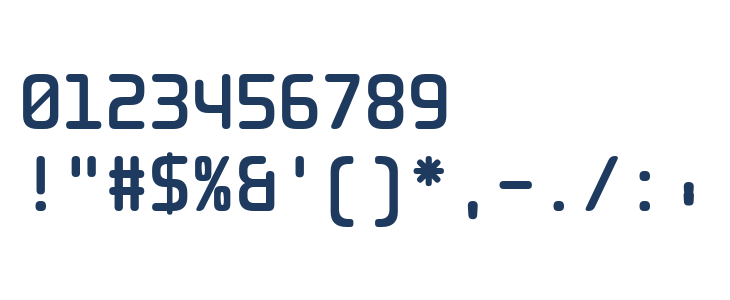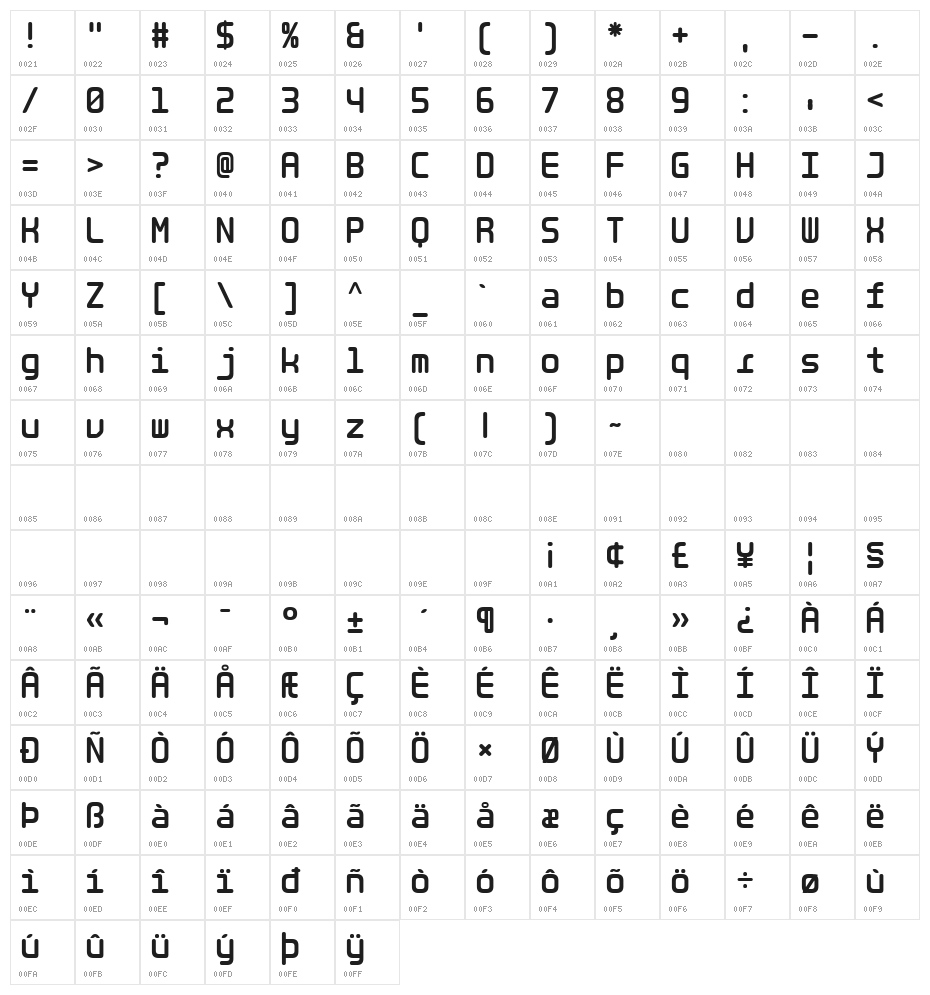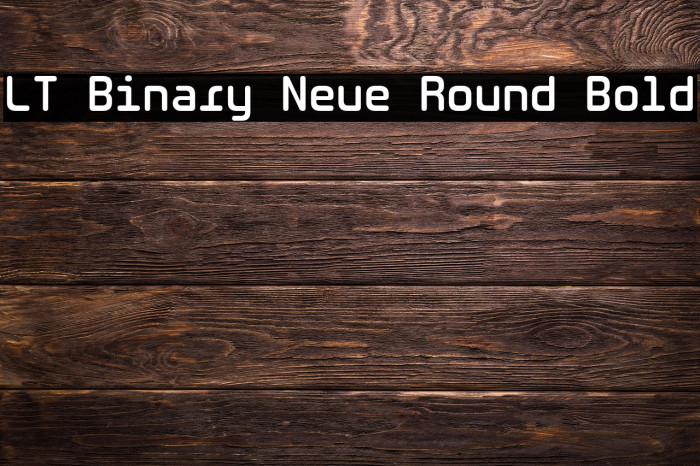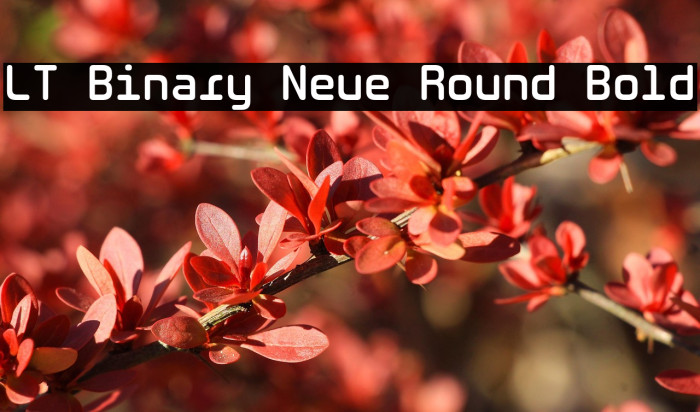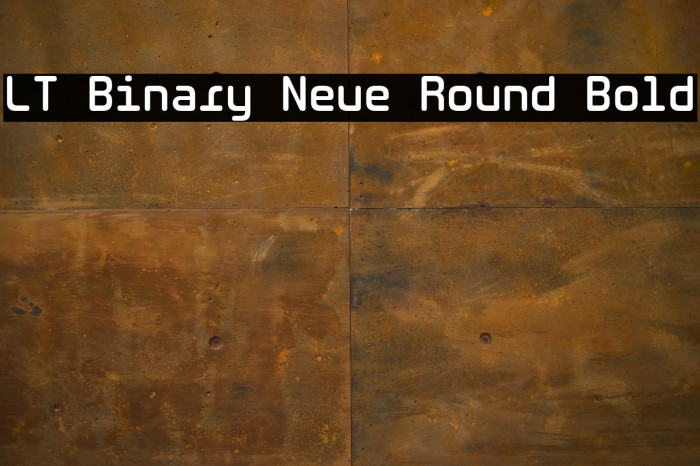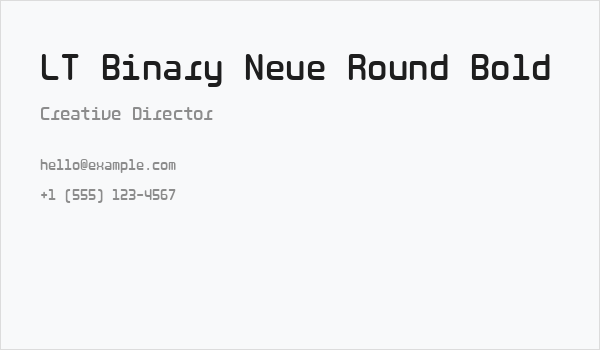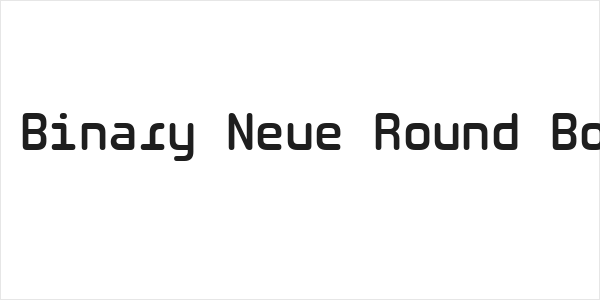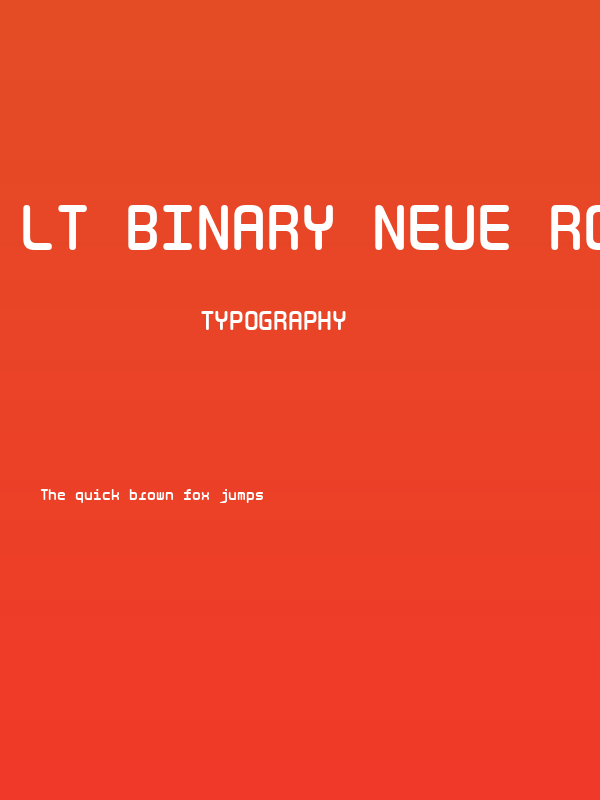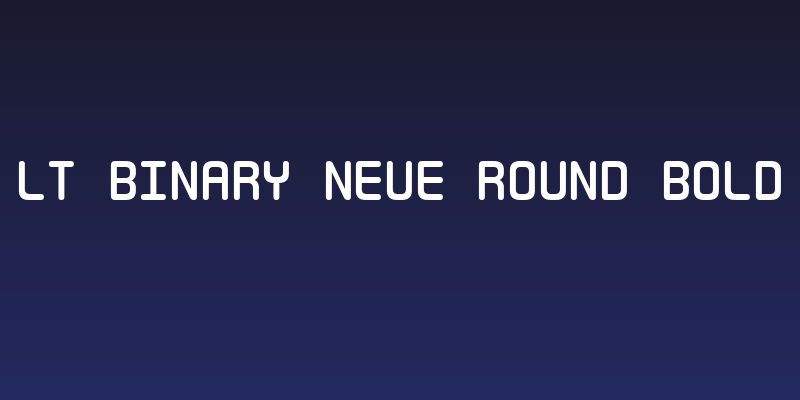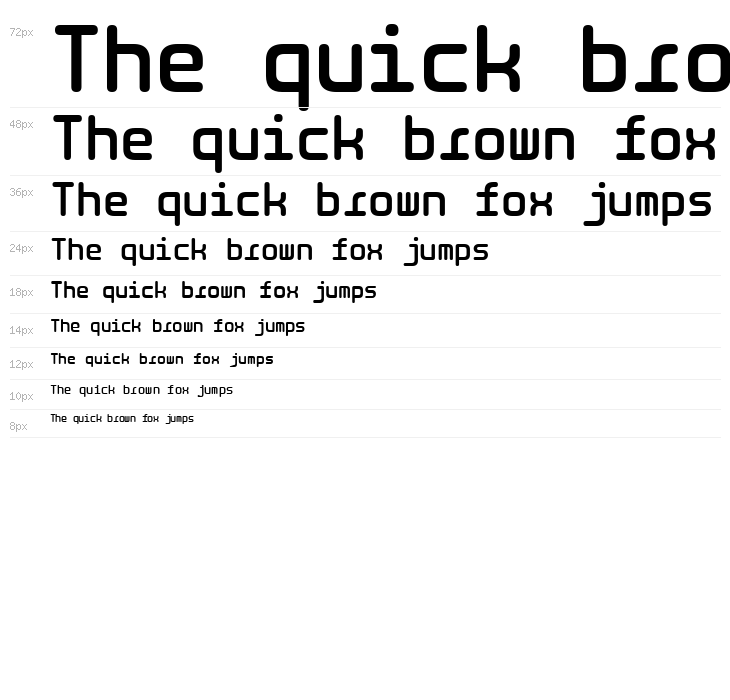
LT Binary Neue Round Bold Font
LT Binary Neue Round Bold Description
This font features a modern, rounded design with a bold weight, making it highly legible and visually appealing. The characters are uniformly structured with smooth curves and consistent stroke thickness, giving it a friendly and approachable appearance. The rounded edges soften the overall look, making it suitable for a variety of applications where a contemporary and clean aesthetic is desired. The font maintains a balanced proportion between height and width, ensuring readability across different sizes. Its geometric style is complemented by a slight playfulness, making it versatile for both professional and casual use.
| Use Case | Headlines, Logos, Digital Interfaces |
| Proposed Projects | Ideal for branding, advertising, digital interfaces, and children's educational materials. |